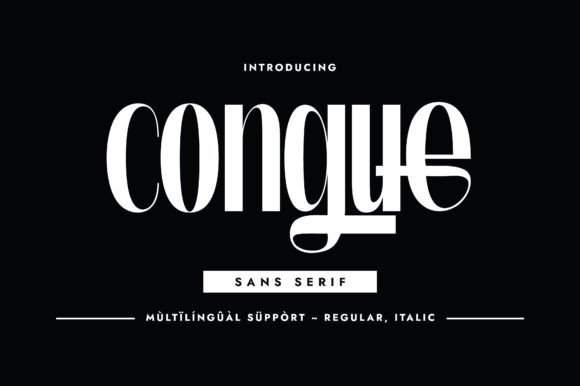
Introducing Congue Font: The Key to Unlocking Visual Impact
Immerse yourself in the world of Congue, a captivating sans serif font that exudes modern elegance. Its pristine lines and distinctive curves evoke a sense of sophistication, making it the ideal choice for designers seeking to make a lasting impression.
Congue's striking presence stems from its tall and bold glyphs, meticulously crafted to demand attention. Whether you're crafting eye-catching headlines, designing captivating posters, or developing sleek user interfaces, Congue effortlessly elevates your creations to new heights.
Its minimalist essence seamlessly complements contemporary design aesthetics, ensuring that your message shines through with clarity and impact. From branding to web design, Congue empowers you to convey your vision with a modern flair that resonates with audiences.
Beyond its visual prowess, Congue's versatility extends to a myriad of creative endeavors. Unleash your imagination and explore the boundless possibilities it offers for logos, social media graphics, packaging, and even fashion designs.
Embrace Congue as your creative companion and watch your designs transform into captivating masterpieces. Its ability to command attention and convey messages with style and impact will leave an unforgettable mark on your audience.